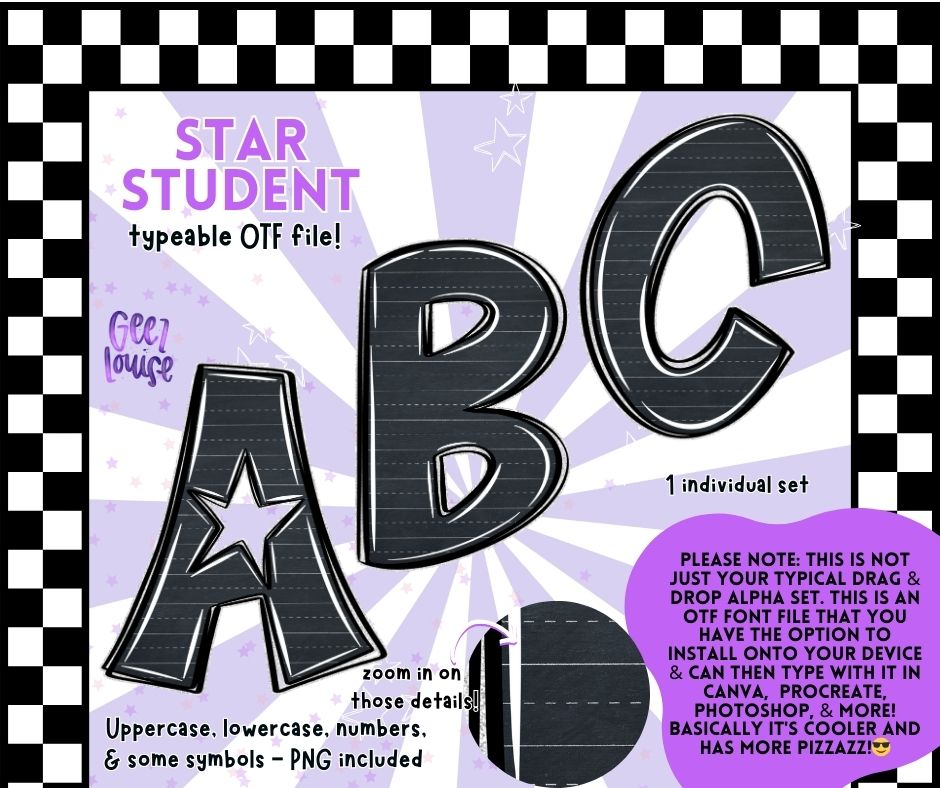
Class is officially in session with Star Student, the font that brings all the sparkle without the homework. This typeable OTF file features uppercase, lowercase, numbers, and some symbols – plus includes matching PNG letters for drag-and-drop ease. Whether you're designing for teachers, students, or back-to-school vibes, this font adds just the right mix of chalkboard charm and glitter glam.
✅ Glitter outline, chalkboard fill, hand-drawn flair